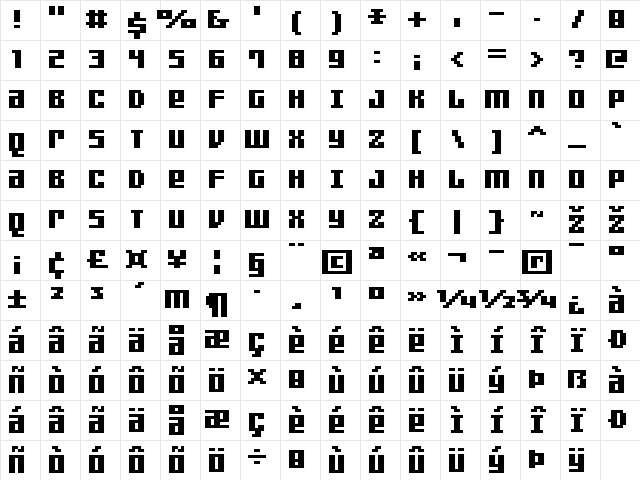
Complete FFF Games Thin Bold Extended Regular glyph index. Displaying only characters natively supported by FFF Games Thin Bold Extended Regular font.
FFF Games Thin Bold Extended is a composed and adaptable typeface that performs quietly and consistently across a wide range of design contexts. Its bold stroke weight gives it real presence on the page.